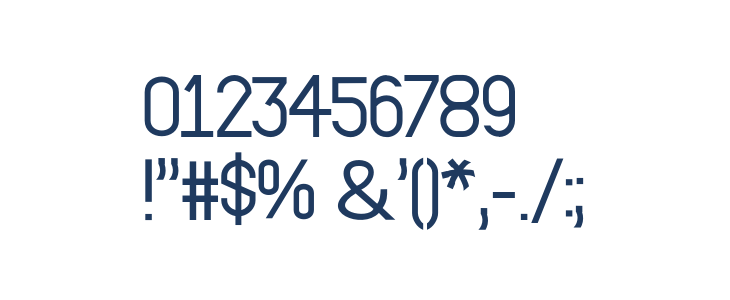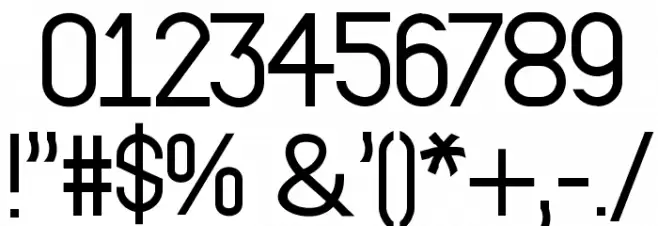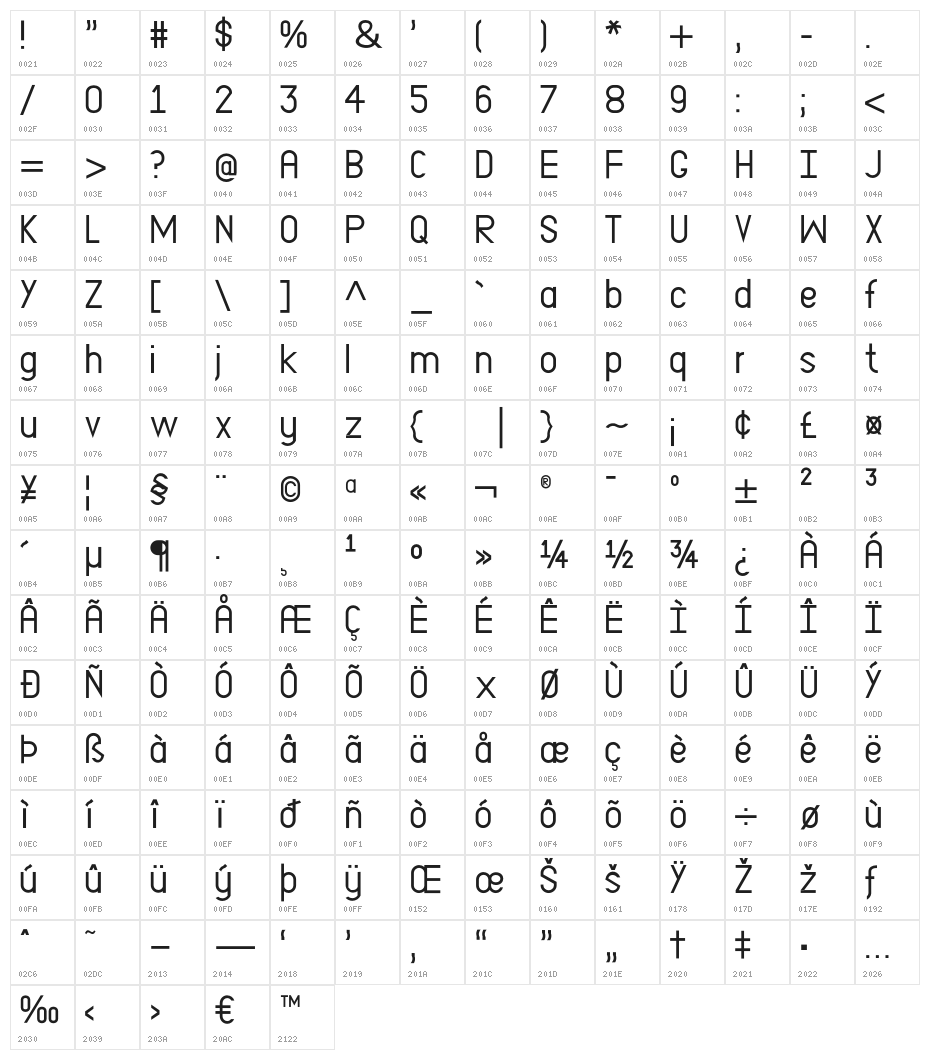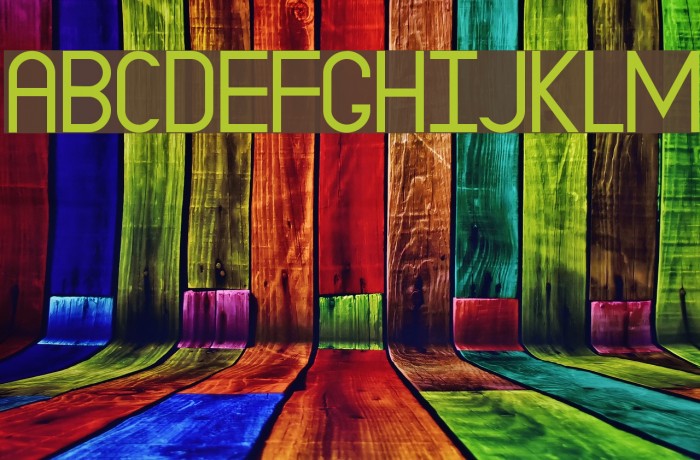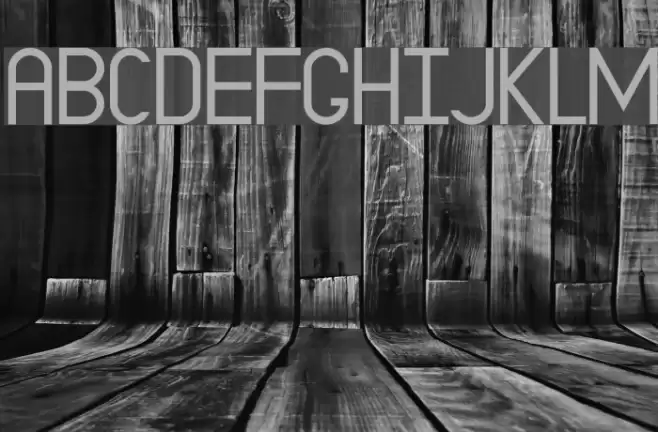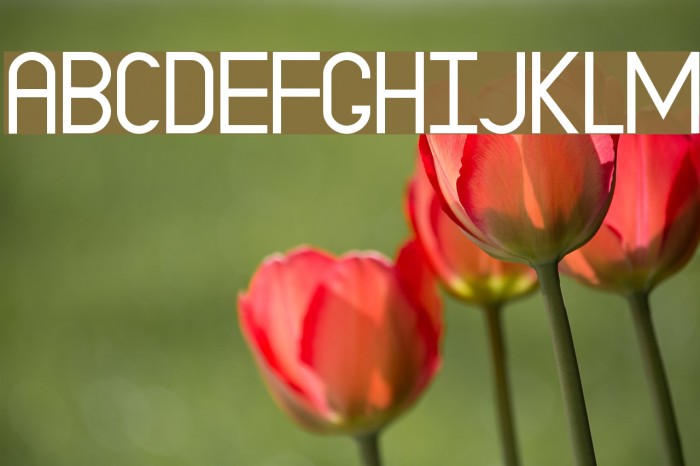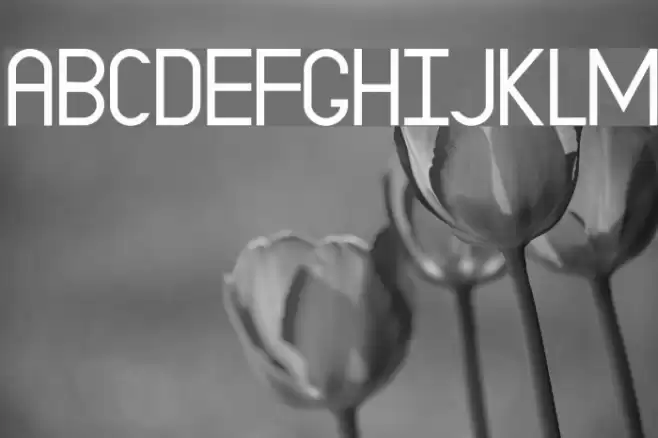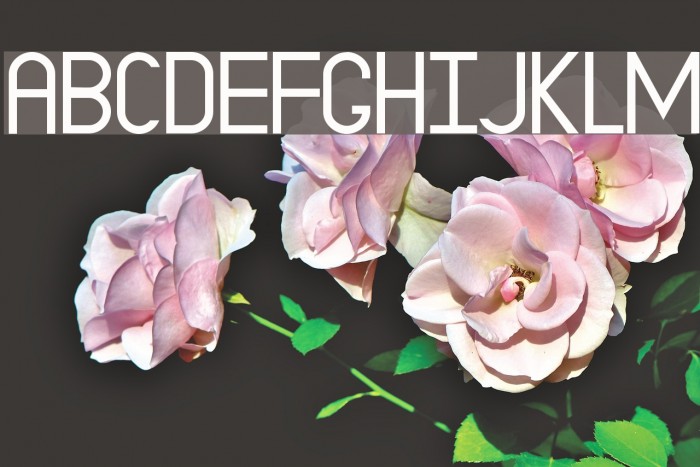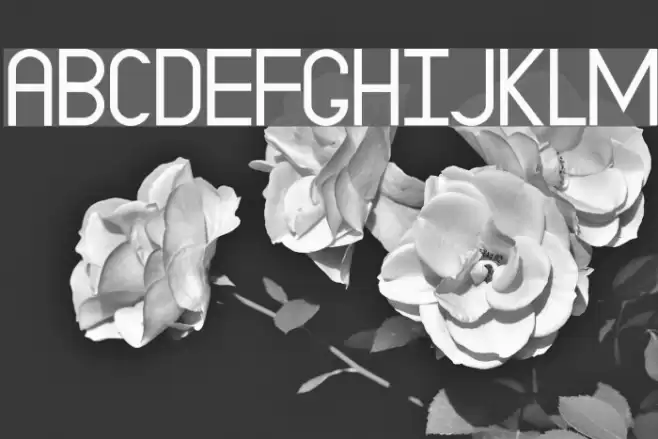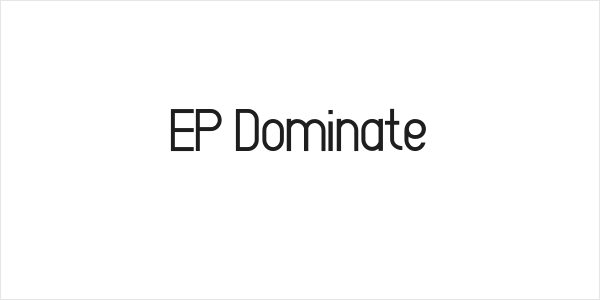
EP Dominate Font
EP Dominate Description
This font features a clean, modern sans-serif design with a geometric structure. The characters are uniform in width, providing a balanced and harmonious appearance. The uppercase letters are bold and assertive, while the lowercase letters maintain a consistent style with slightly rounded edges, enhancing readability. The numerals are clear and distinct, matching the overall aesthetic of the alphabetic characters. Special characters are well-integrated, maintaining the font's cohesive look. The font's simplicity and clarity make it versatile for various applications, from digital to print media.
Use CaseHeadlines, Body text, Logos
Proposed ProjectsIdeal for branding, web design, advertising, and editorial projects where clarity and modernity are desired.